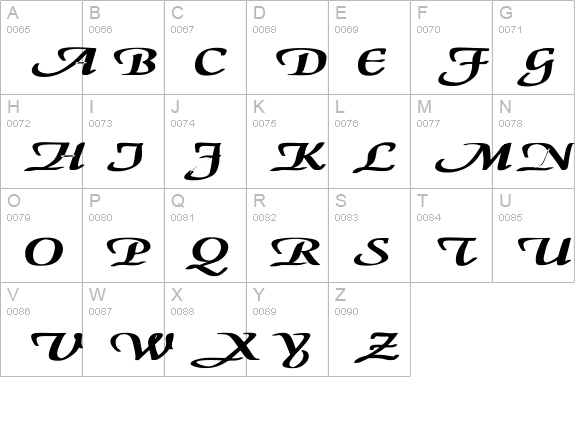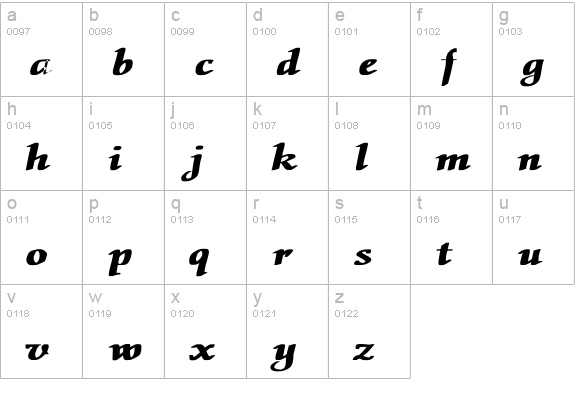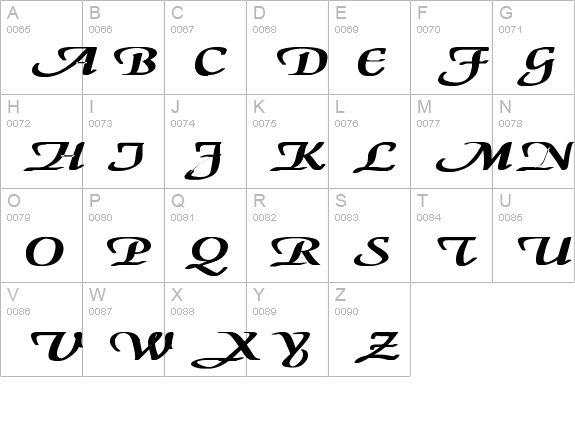
ElGar Ex Bold Font Details
ElGar Ex Bold is a strong, high-contrast variant in the ElGar typeface family \xE2\x80\x94 well suited to headlines, attention-grabbing titles, and strong calls-to-action.
ElGar Ex Bold font is a stunning display typeface that exudes modern elegance and sophistication. With its bold and commanding presence, this font is perfect for making a statement in headlines, titles, and branding materials. The sharp edges and clean lines of ElGar Ex Bold give it a contemporary and stylish look that will surely catch the eye of any audience. What sets ElGar Ex Bold apart is that it is available for free download at FontsMarket.com. This means that you can easily access this high-quality font without any cost, making it a fantastic option for designers, creatives, and anyone looking to elevate their projects with a touch of bold sophistication. Don't miss out on the opportunity to enhance your designs with the striking presence of ElGar Ex Bold font – download it for free today at FontsMarket.com.